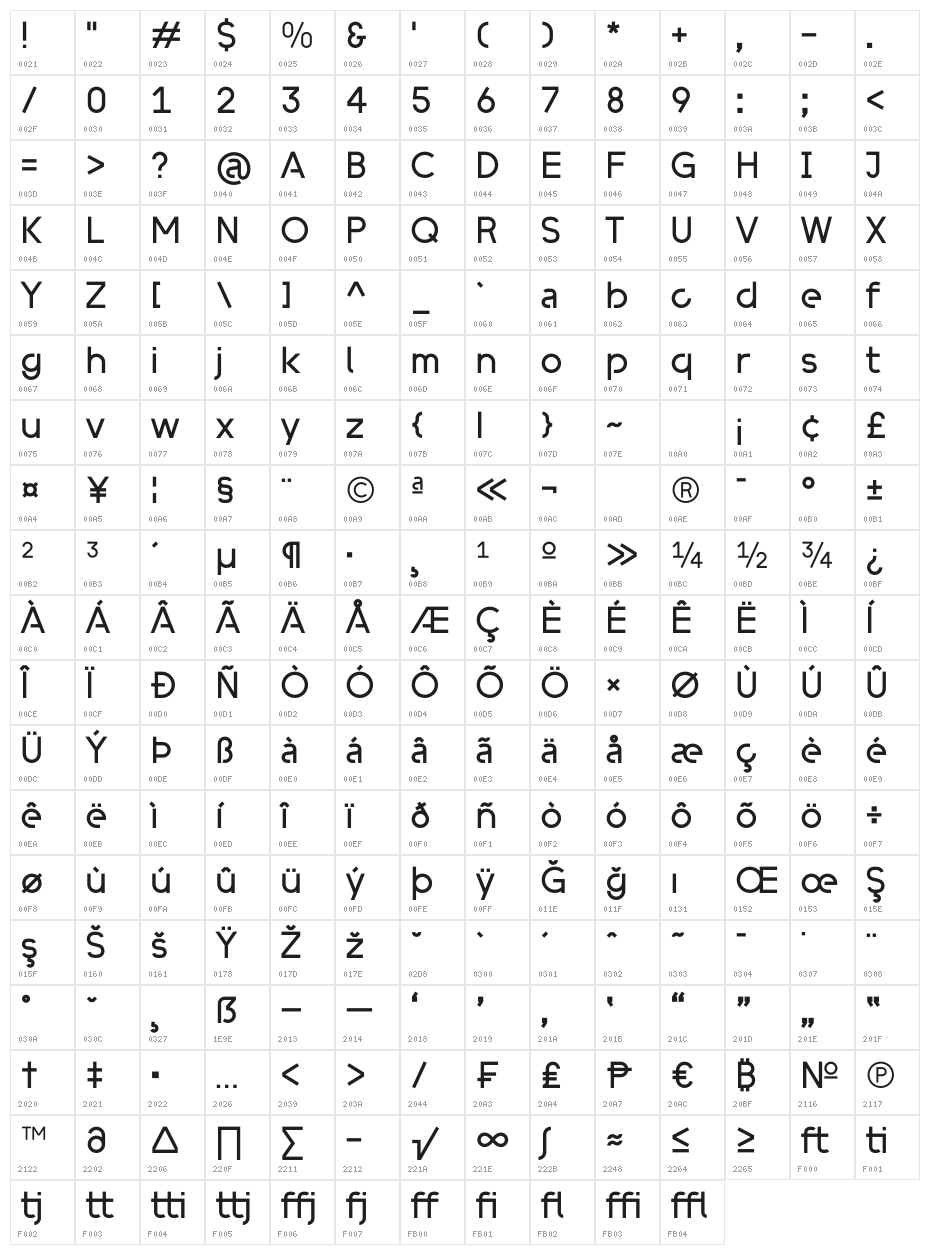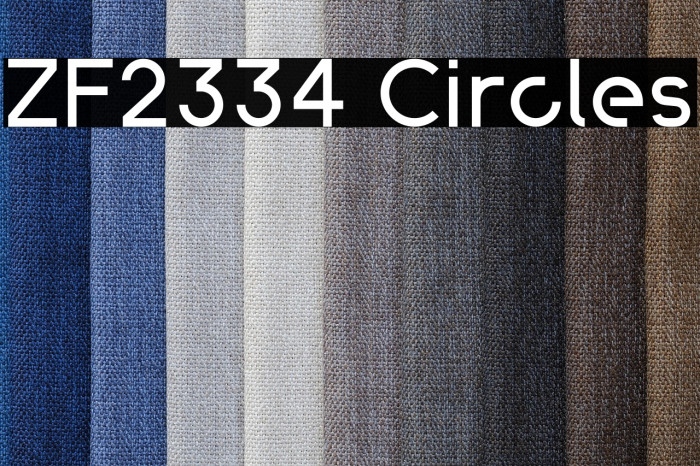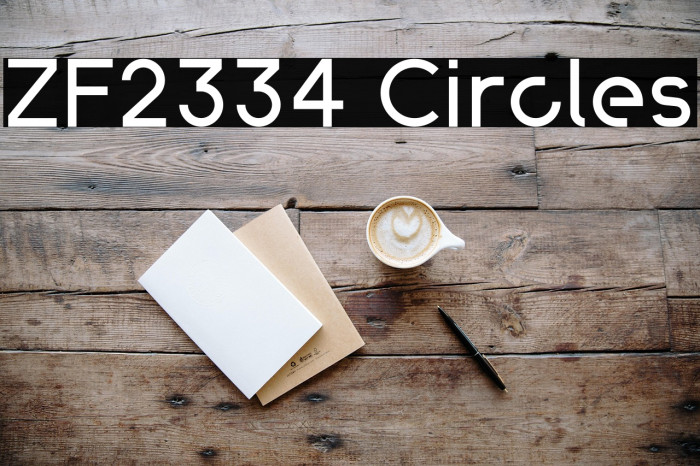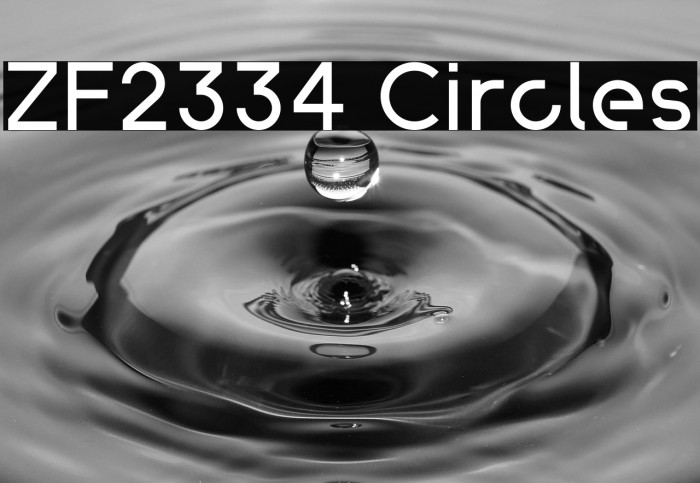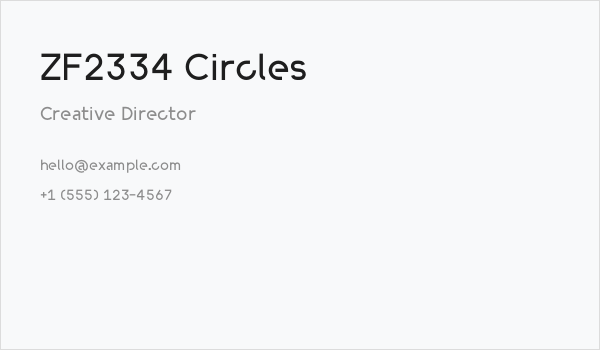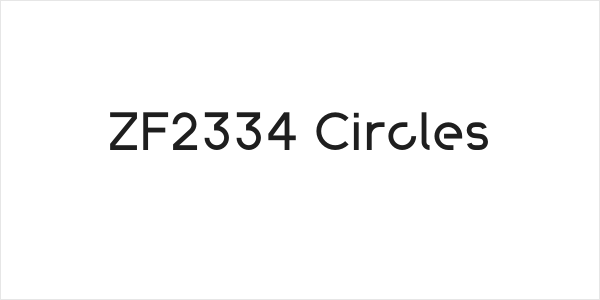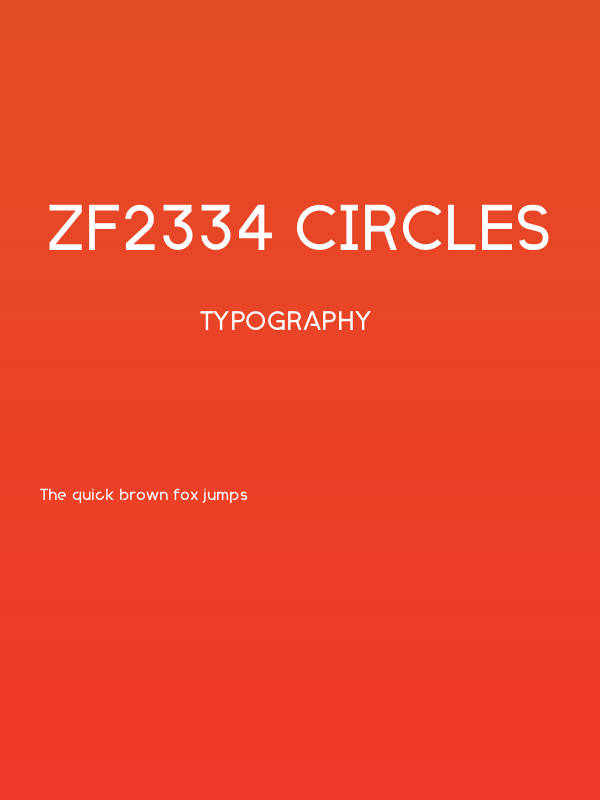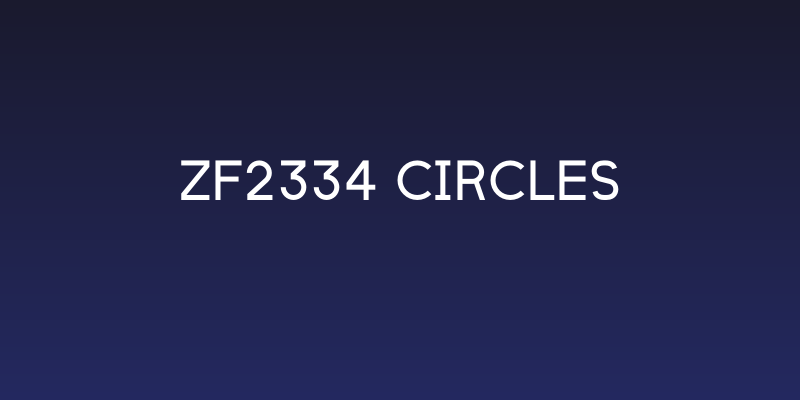
ZF2334 Circles Font
ZF2334 Circles Description
A geometric, sans-serif typeface with circular letterforms and consistent stroke widths, creating a clean and modern appearance. The characters are evenly spaced, and the overall design emphasizes simplicity and clarity.
| Overall Style | Modern, Geometric, Minimalist |
| Use Case | Logos, Headlines, UI design, Posters |
| Proposed Projects | Tech branding, minimalist posters, app interfaces, modern logos, infographics. |